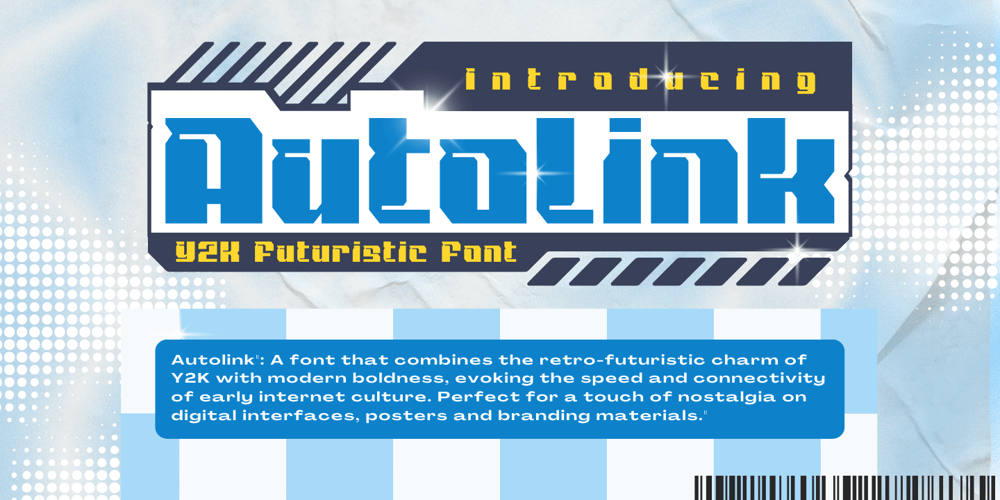
Autolink Font Family was designed by Muhamad Yusron Billah and published by Sronstudio. Autolink contains 1 styles and family package options. Introducing “Autolink,” a font that channels the futuristic vibes of the Y2K era. With its sleek and dynamic design, this font embodies the cutting-edge aesthetics of the early 2000s. Perfect for projects that seek to evoke a sense of futuristic nostalgia, such as posters, digital artwork, or branding materials. “Autolink” adds a touch of retro-futurism to your text, transporting your audience back to the Y2K era while still feeling fresh and modern.Features:- PUA Encoded- Multilingual support- Simple Installation- Work both on Mac and WindowsThank you very much 🙂